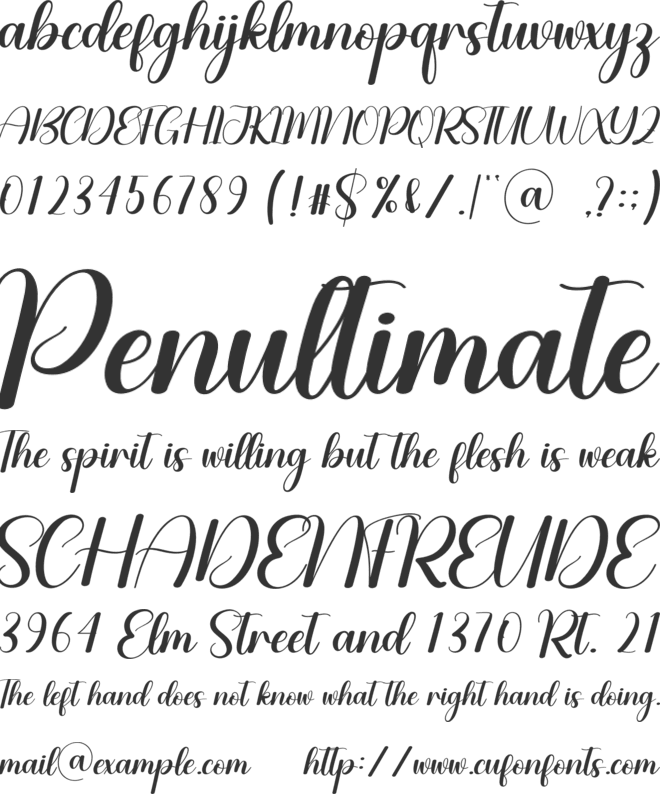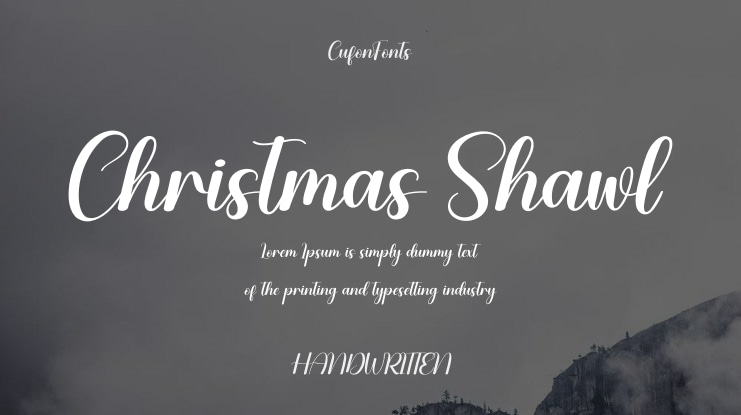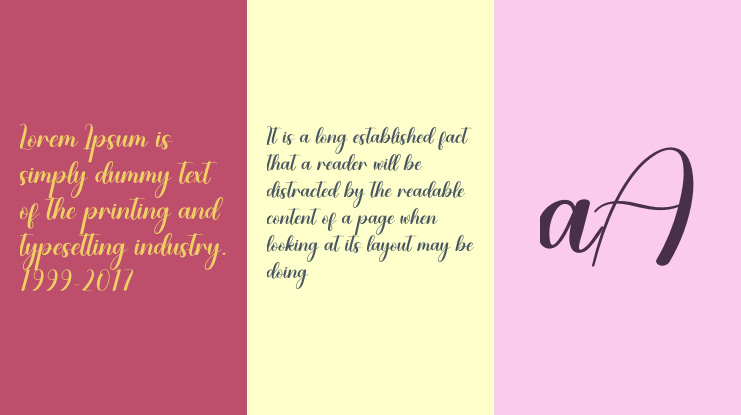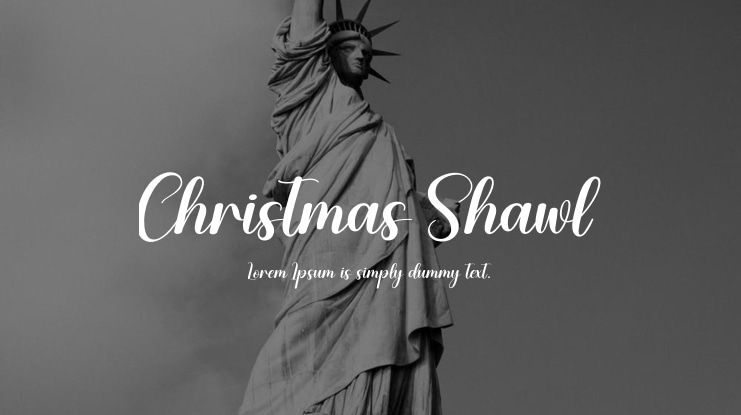
Our latest style fonts are perfect for a wide variety of uses including wall displays, wedding invitations, social media logos, advertisements, product packaging, product designs, labels, photography watermarks, invitations, stationery, and any project requiring sophisticated handwriting.